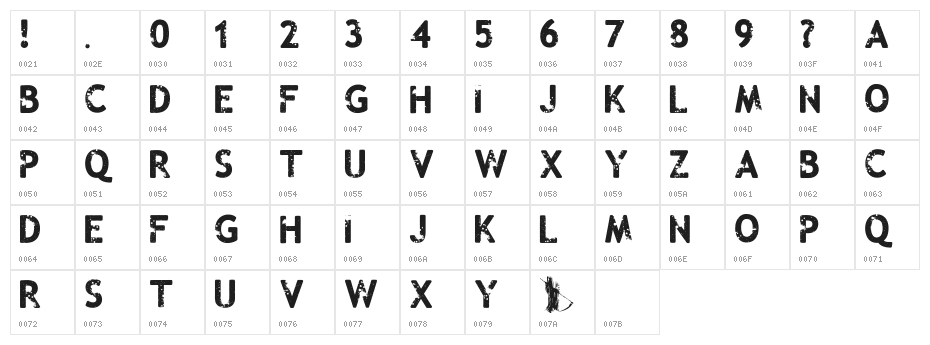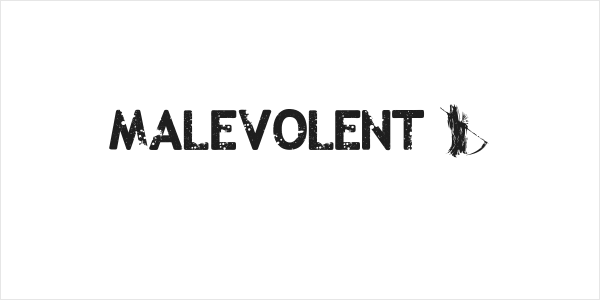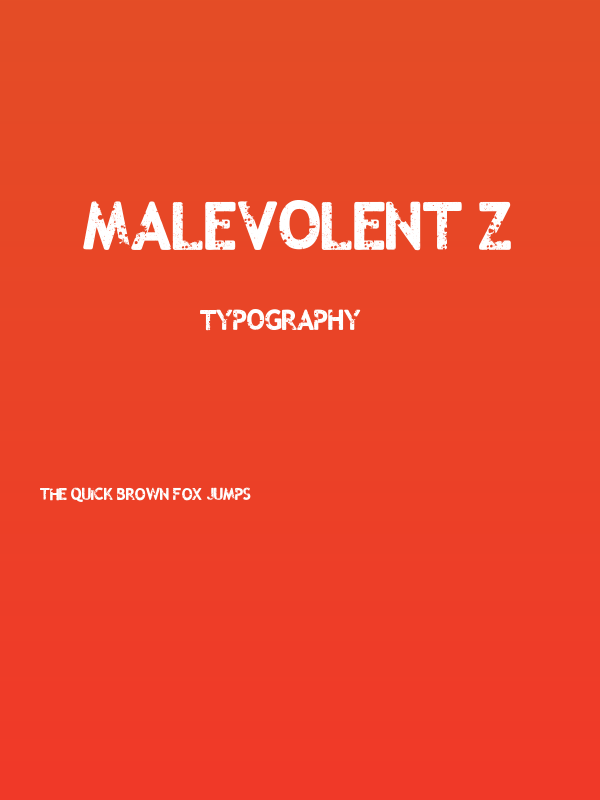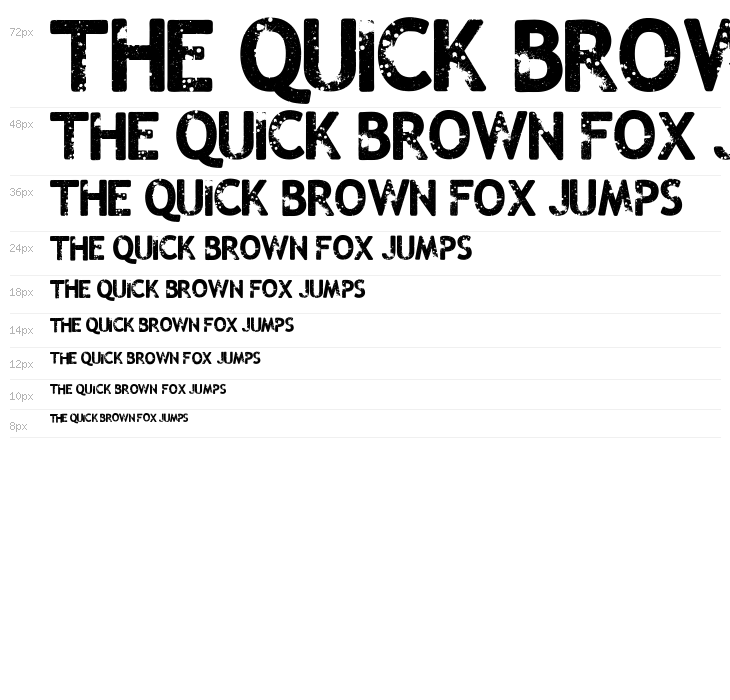
Malevolent z Font
Malevolent z Description
This font exhibits a distressed, grunge style with a bold and impactful presence. The characters are heavily textured, giving them a worn and rugged appearance, reminiscent of weathered surfaces or aged prints. The uppercase and lowercase letters maintain a consistent style, with each character displaying unique distress marks that add to the overall aesthetic. The numerals and special characters follow the same design, ensuring uniformity across all glyphs. This font is ideal for projects that require a bold statement with an edgy, vintage feel.
Overall StyleVintage, Grunge
Proposed ProjectsPerfect for album covers, posters, branding for edgy or alternative products, and any design needing a vintage or rugged look.